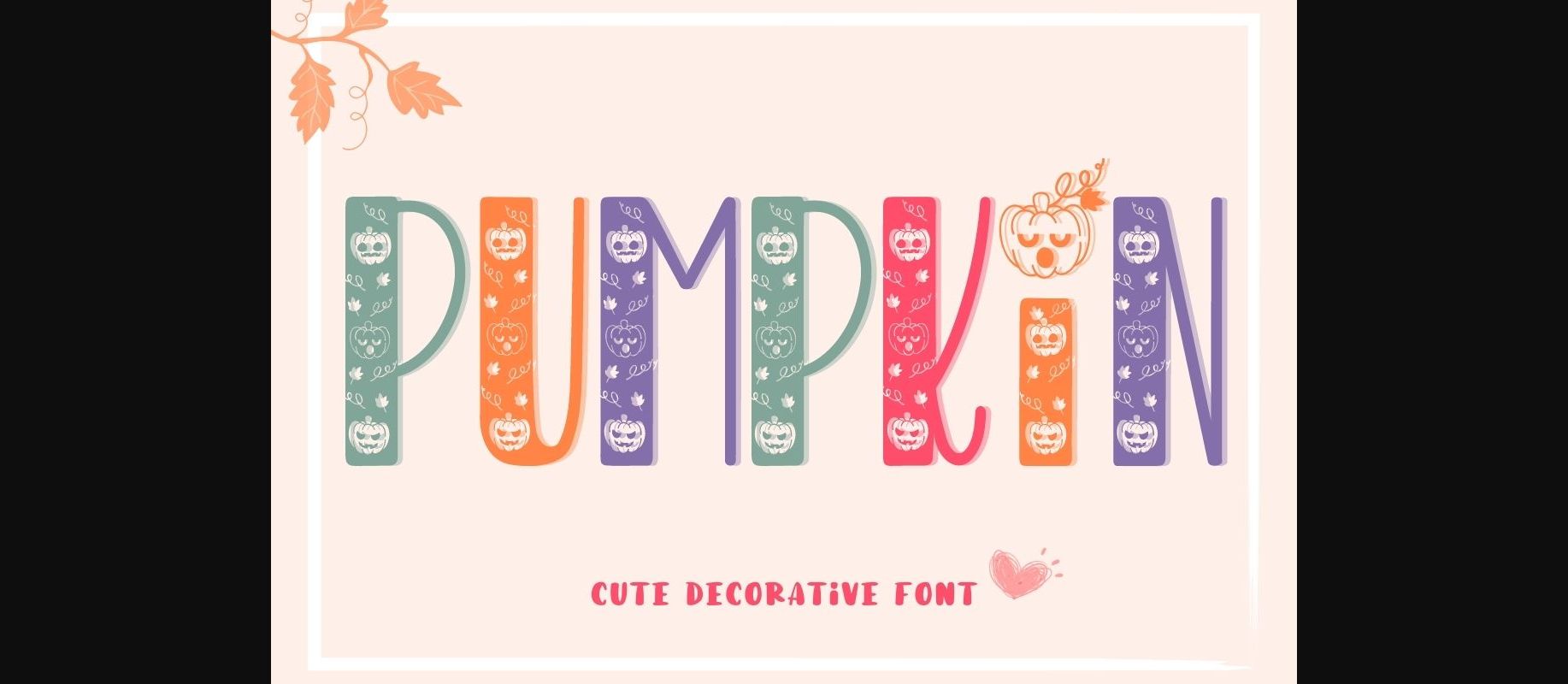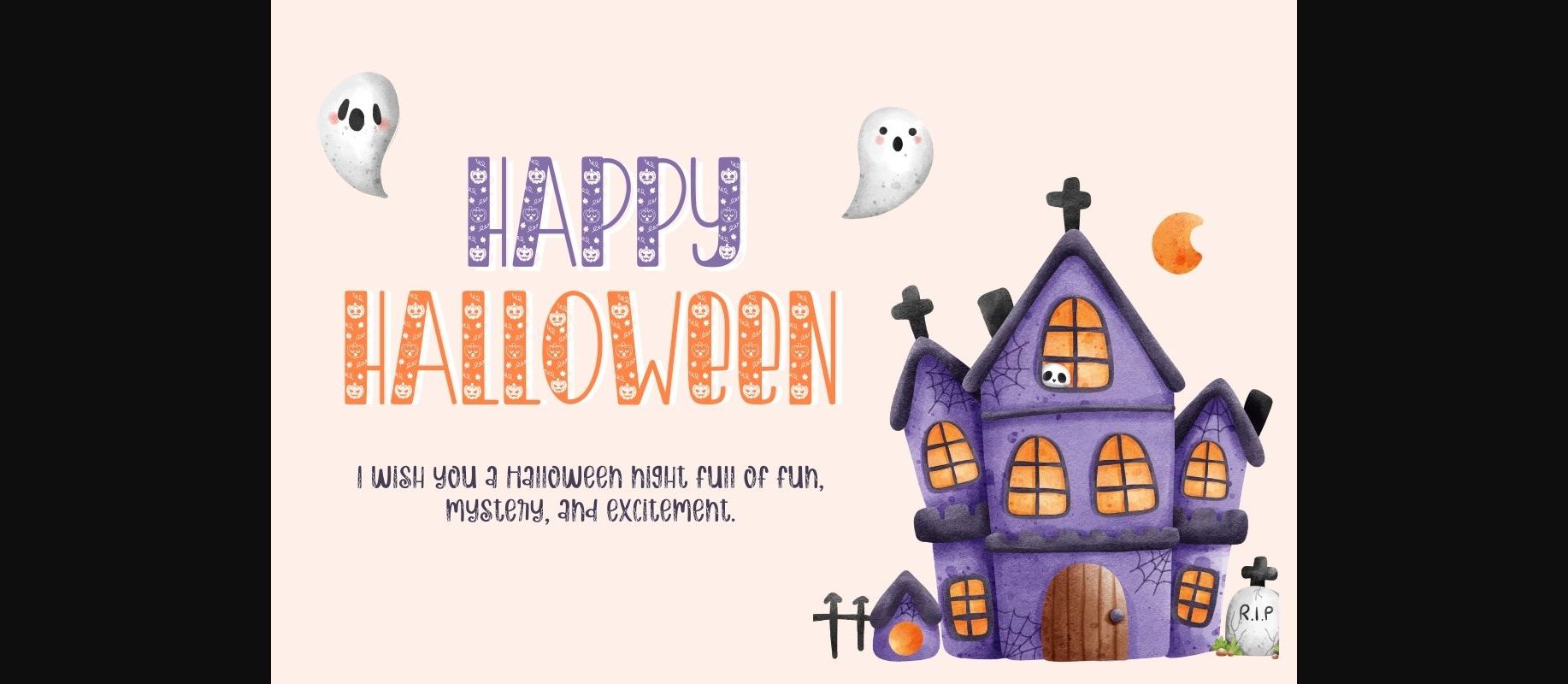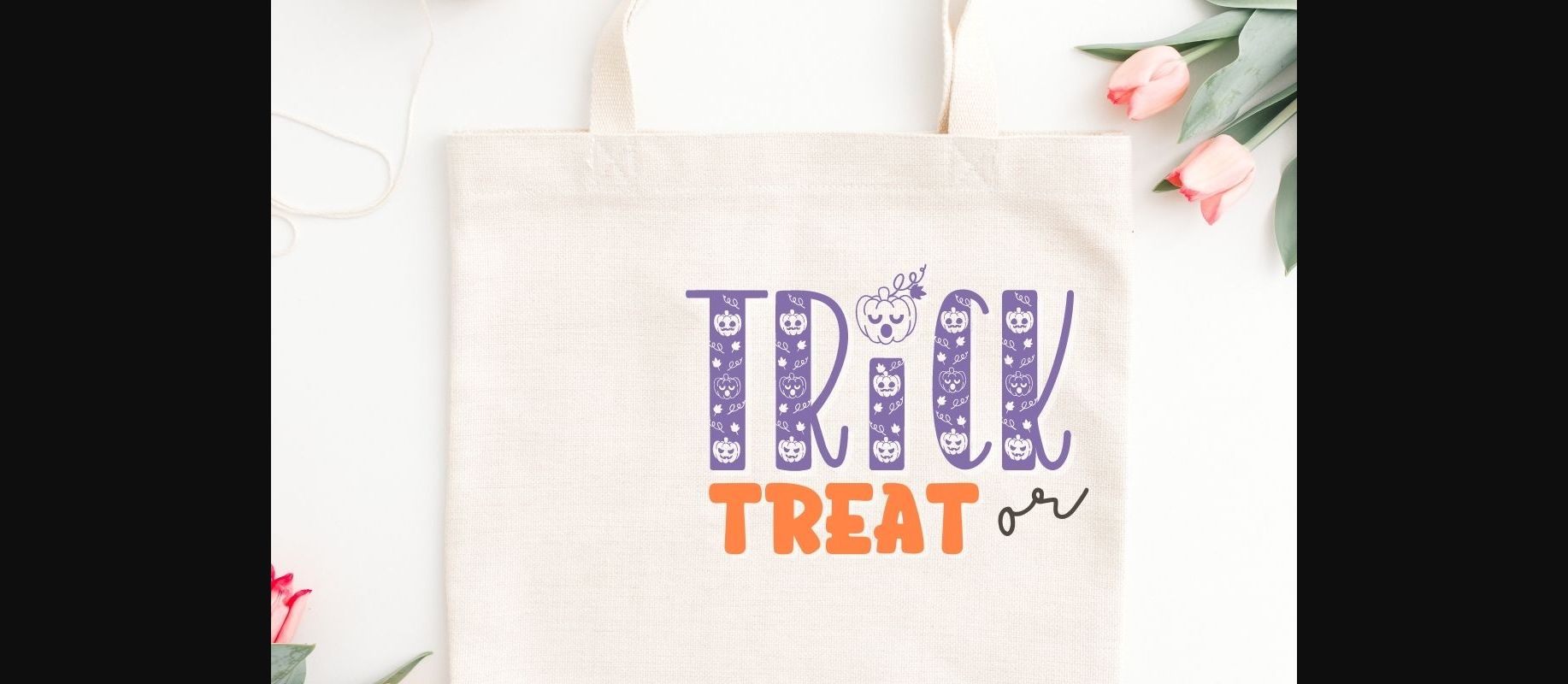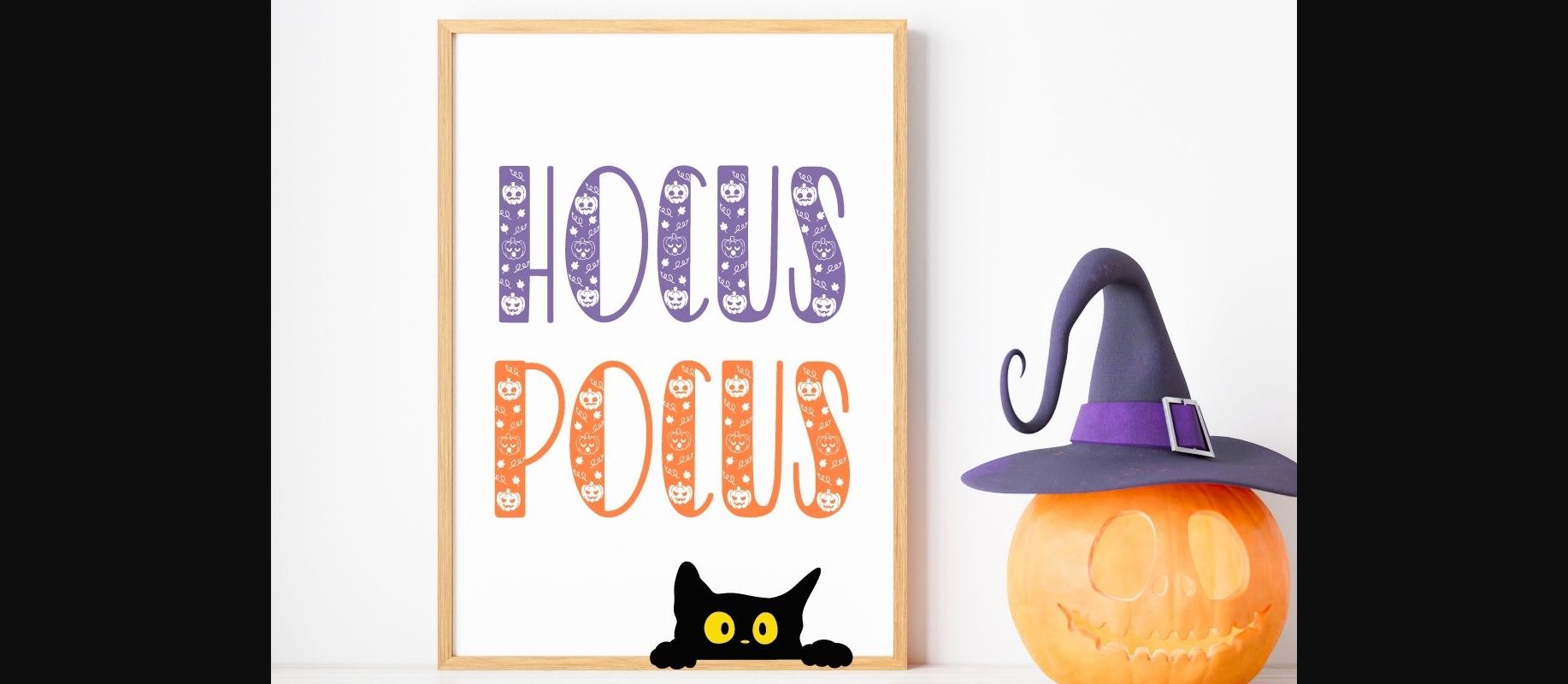
Pumpkin Font
About Pumpkin Font
Pumpkin is a cute decorative font. This font uses cute pumpkin silhouettes combined with handwritten fonts. This font has a quirky style. Perfect for creating a wide variety of new designs to match products such as banners, content, mugs, cards, shirts, stationery, social media posts, and more!